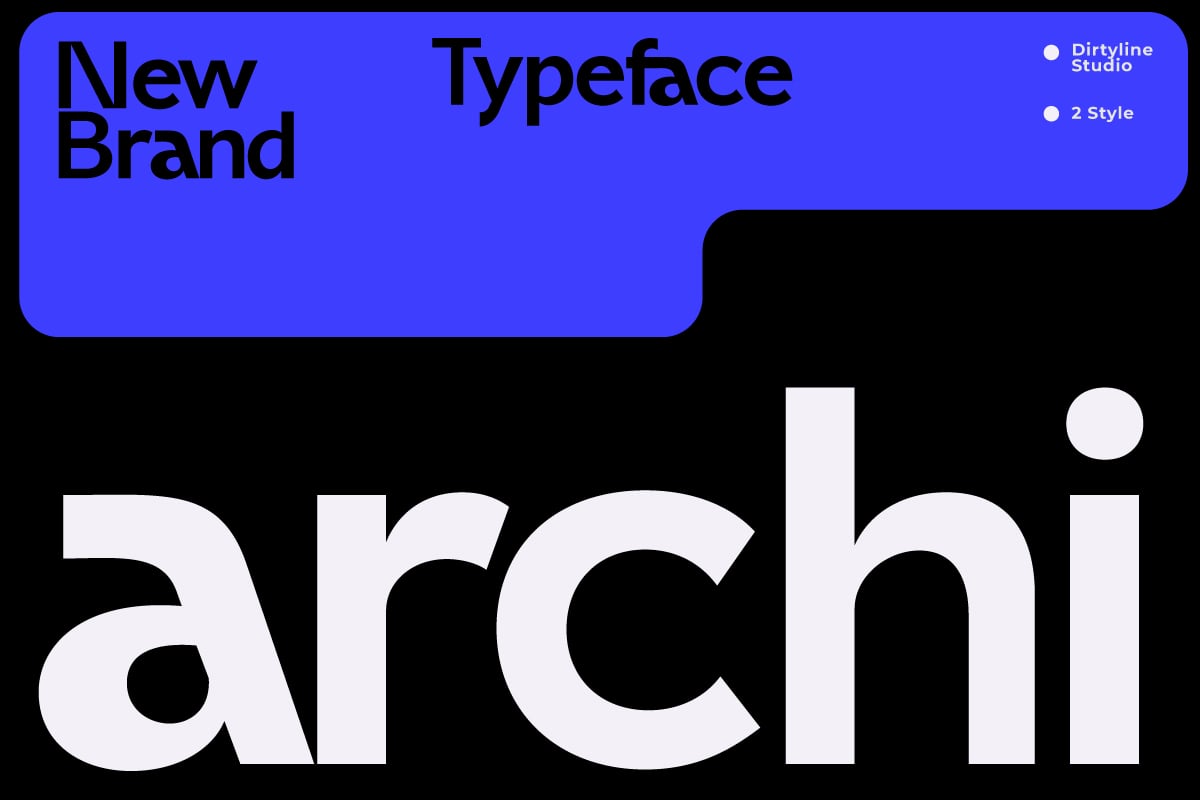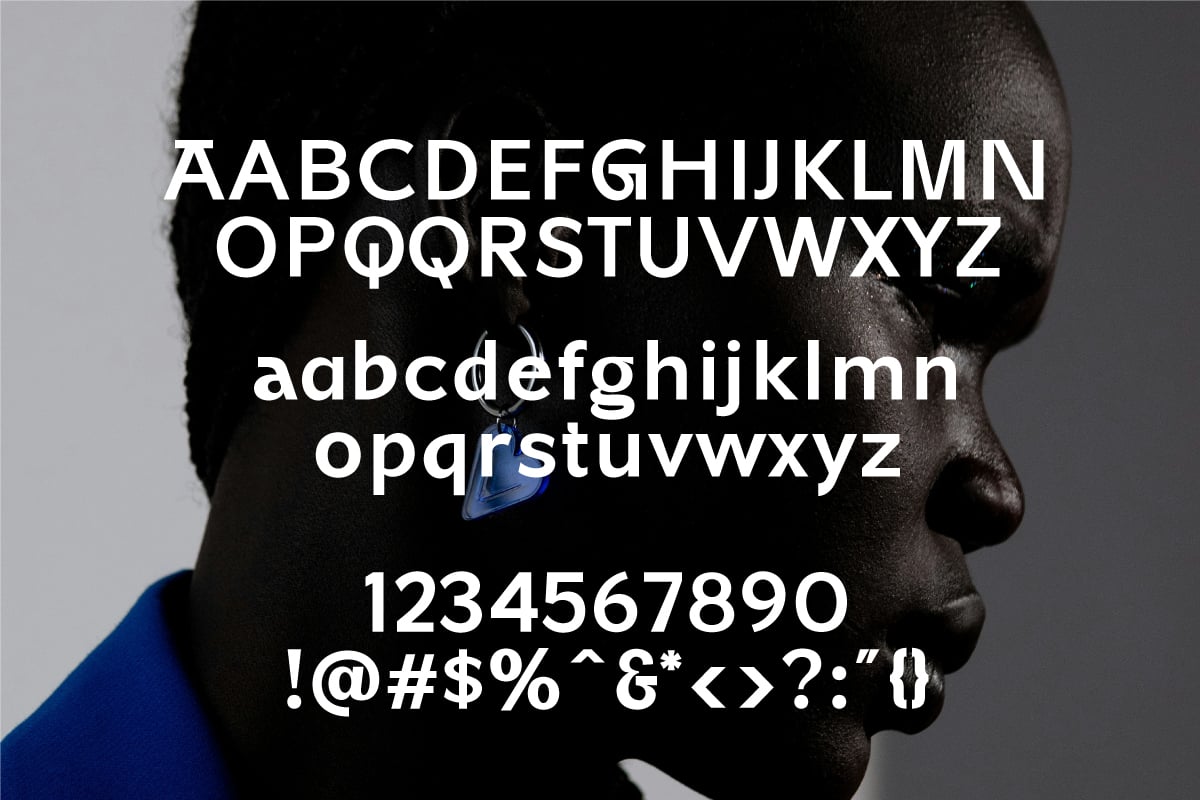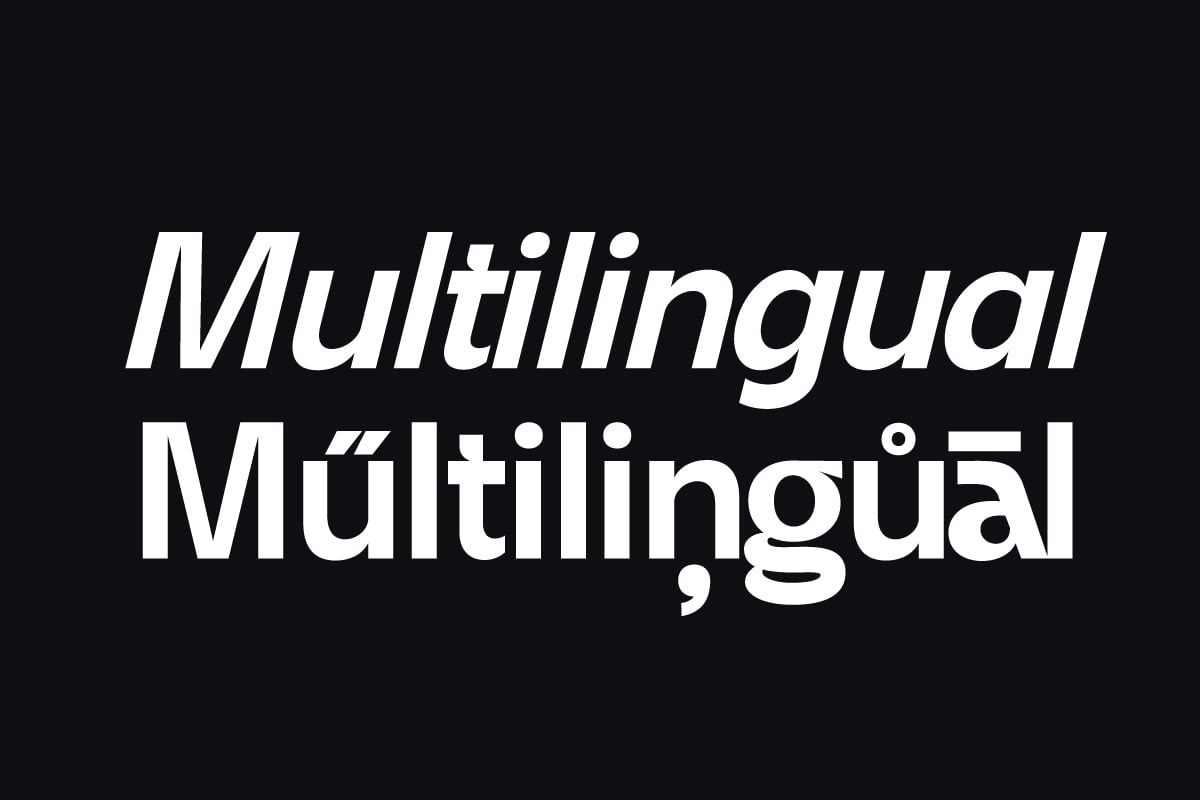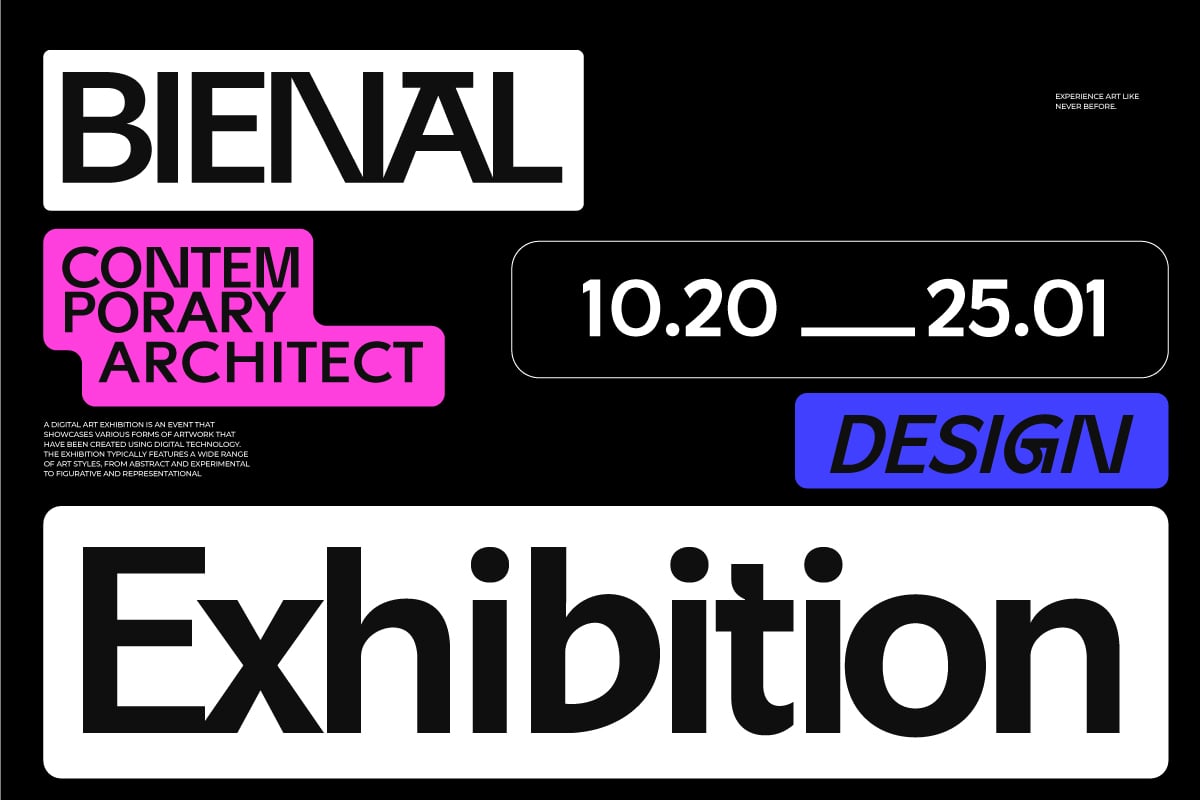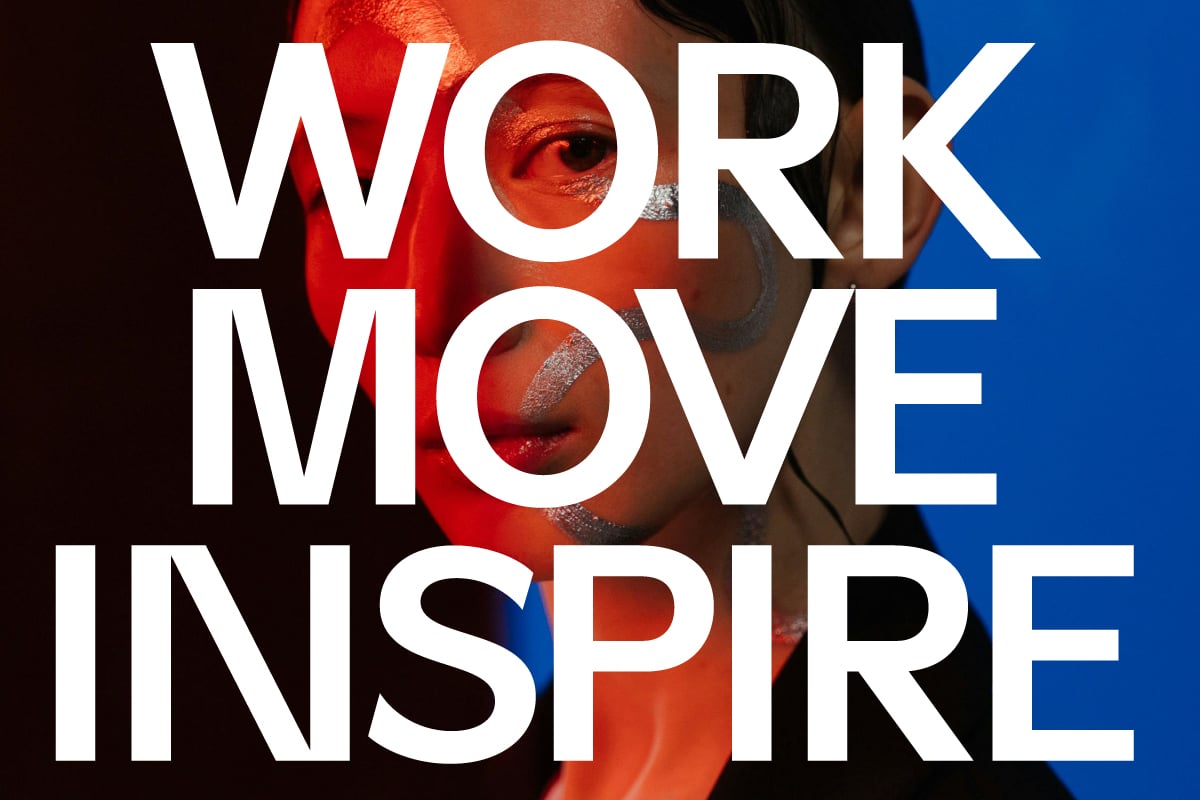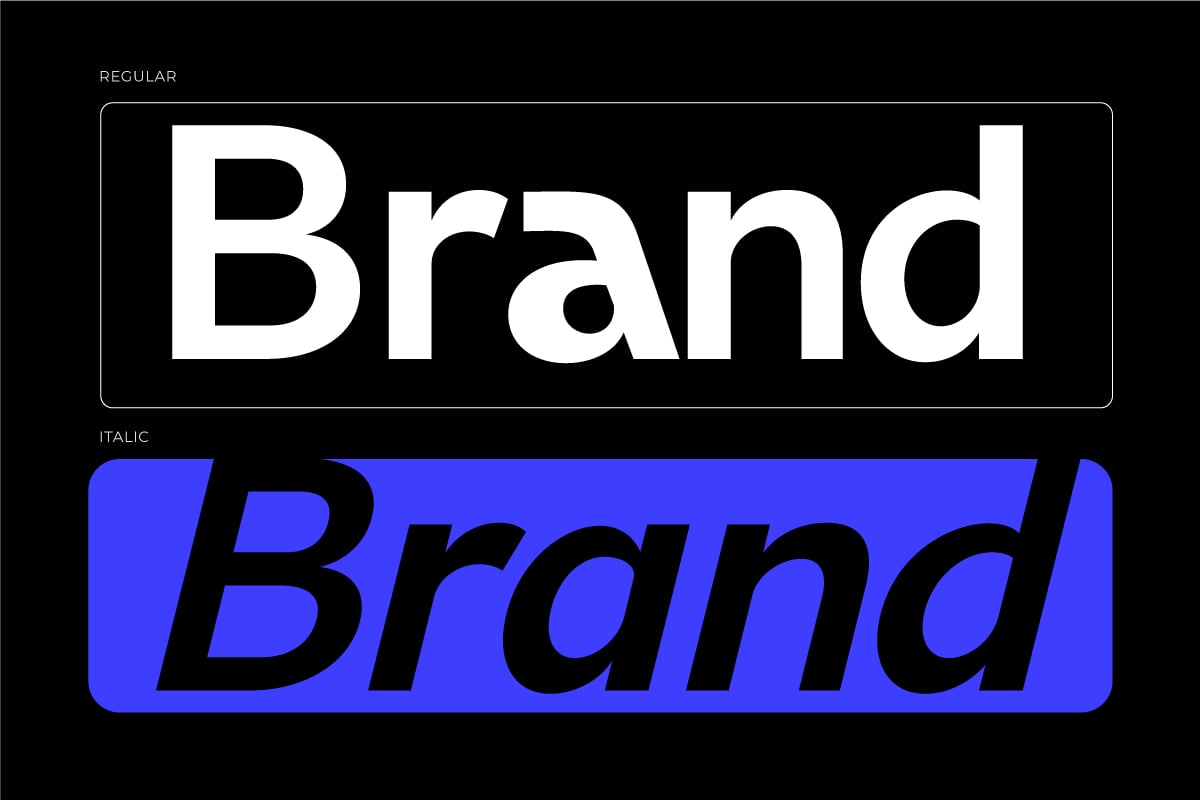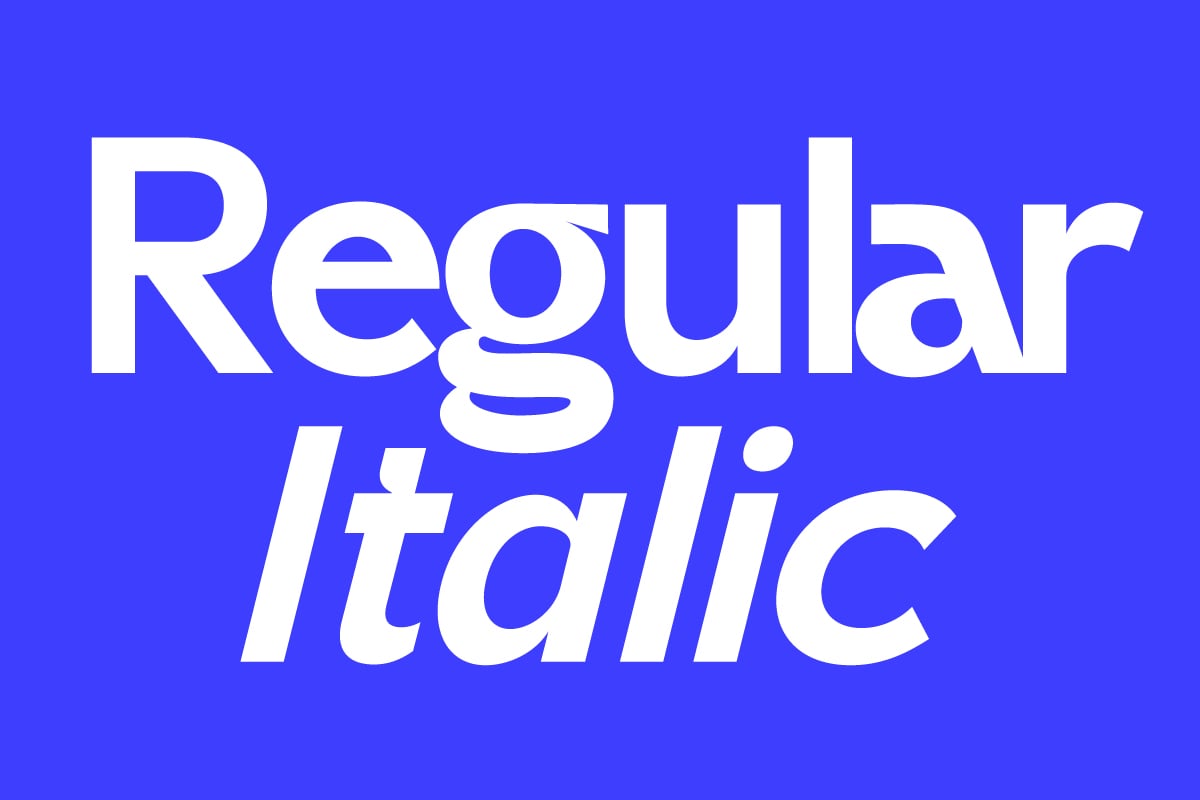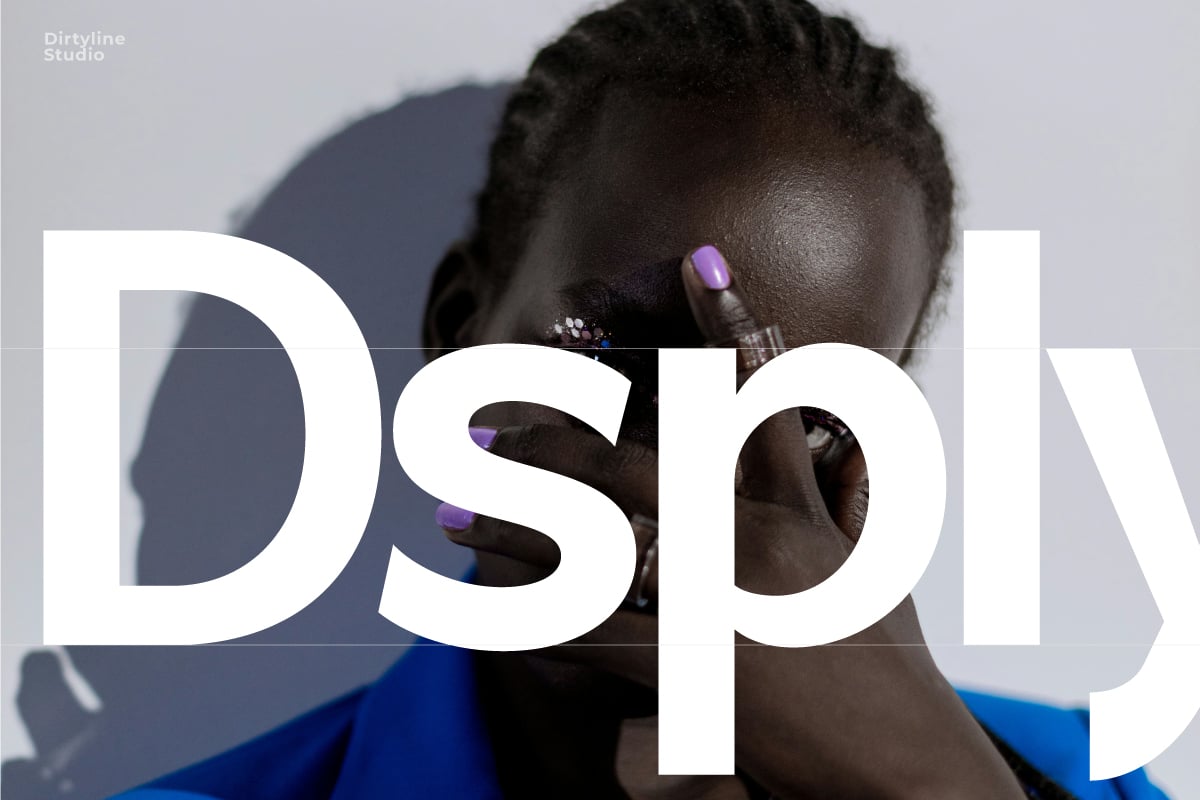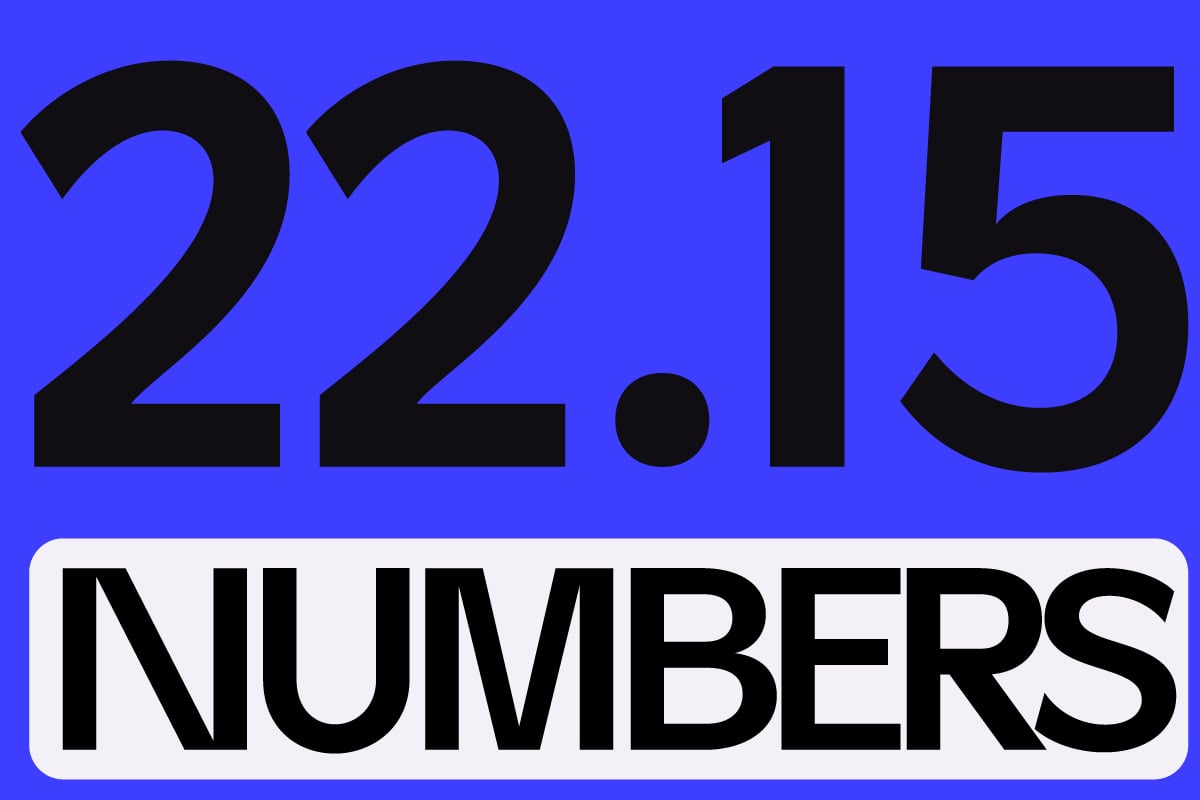
Archi Modern Sans Branding Font
Archi is a contemporary sans serif that offers a straightforward interpretation of the English humanist sans, gently blending rigid tones over a warm structure. It’s available in 2 Style and it comes with an italic set. This simple and carefully crafted typeface, with traits flirting with geometry, becomes a powerful workhorse. Its versatility makes it ideal for both paragraphs and bigger typesettings, a great choice for branding, signage, editorial, and more.
Archi features:
- A full set of uppercase and lowercase
- Numbers and punctuation
- Multilingual language support